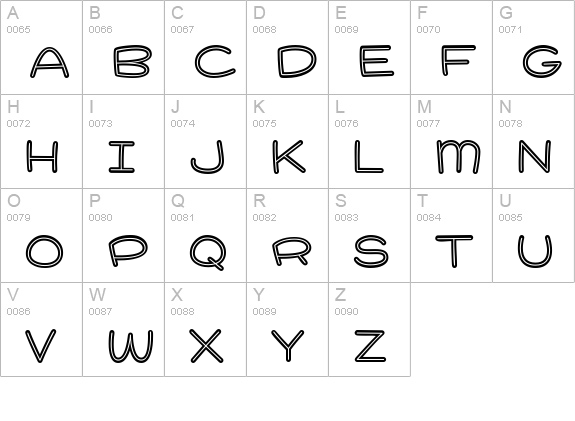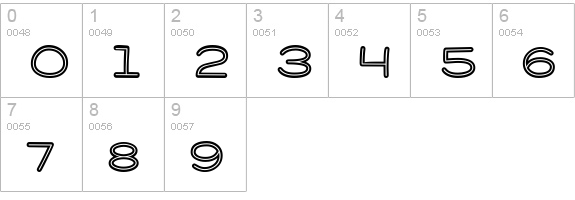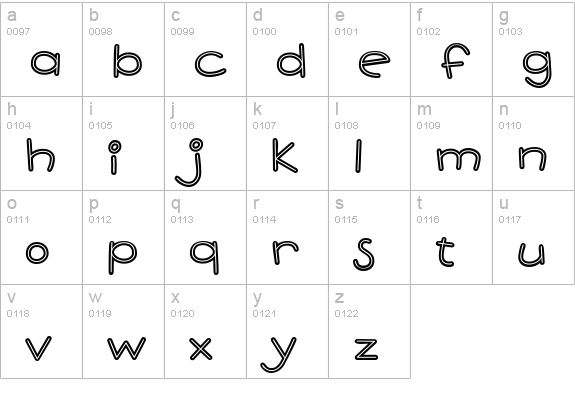
Pie Contest BTN Inline Font Details
The Pie Contest BTN Inline font is a visually captivating typeface that adds a delightful touch to any design project. With its unique and intricate design, this font is sure to grab attention and make a lasting impression. The elegant curves and thin lines of the Pie Contest BTN Inline font create a sense of sophistication and refinement. Whether you're designing a logo, creating a poster, or crafting a menu for a bakery, this font will elevate your design and bring it to life. What's even better is that the Pie Contest BTN Inline font is available for free! Yes, you heard that right. It can be freely downloaded at FontsMarket.com, making it accessible to designers and enthusiasts alike. Now you can add a touch of elegance to your projects without breaking the bank. So why wait? Discover the beauty of the Pie Contest BTN Inline font today and take your designs to new heights. Download it for free at FontsMarket.com and let your creativity soar.